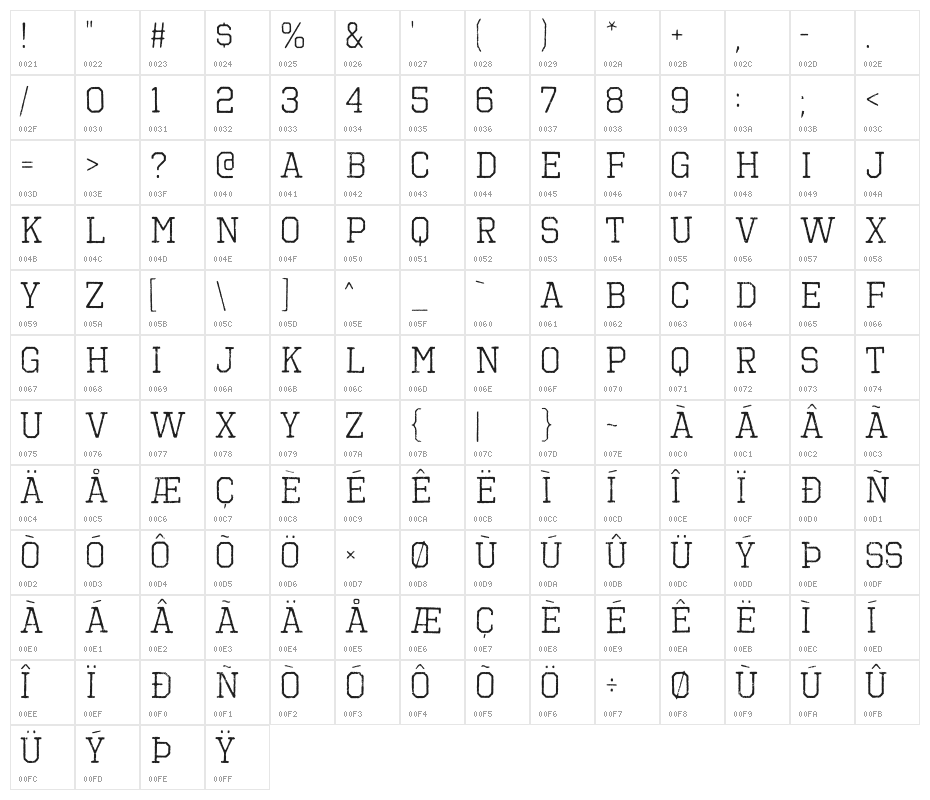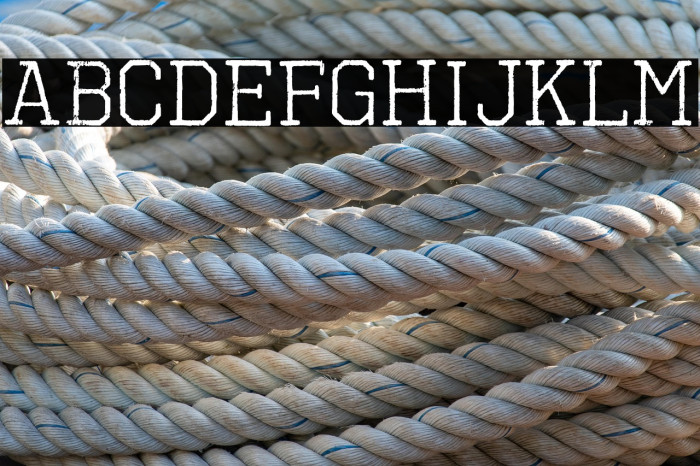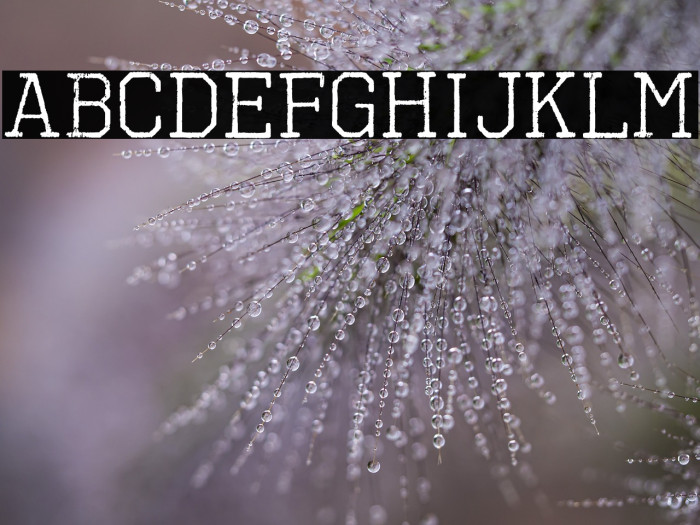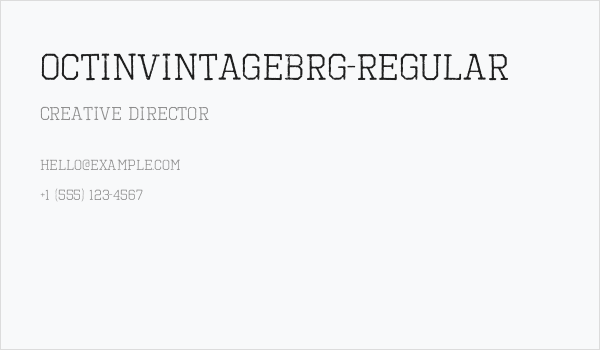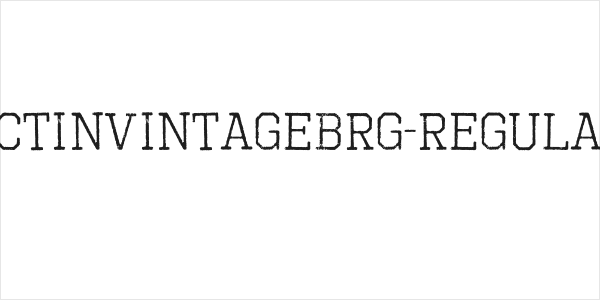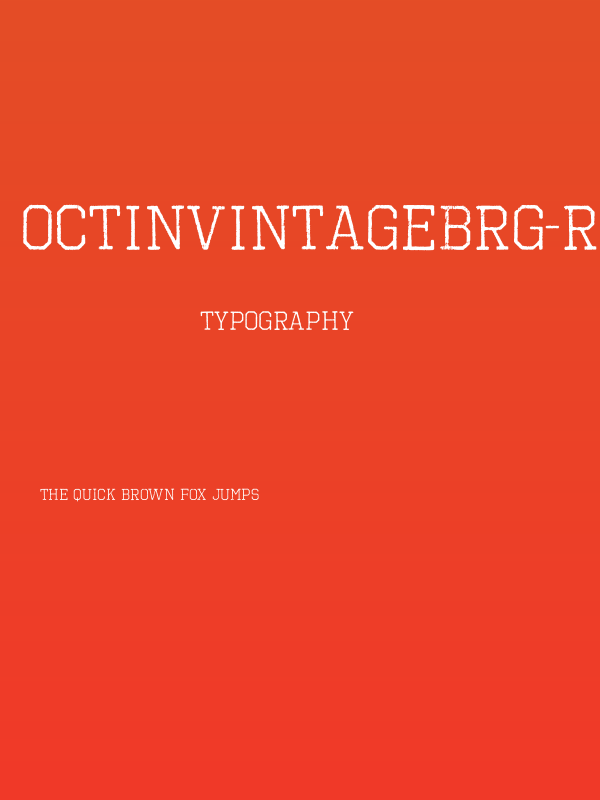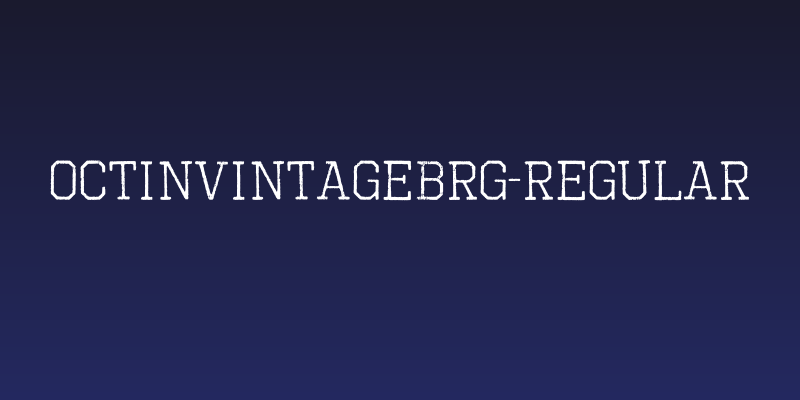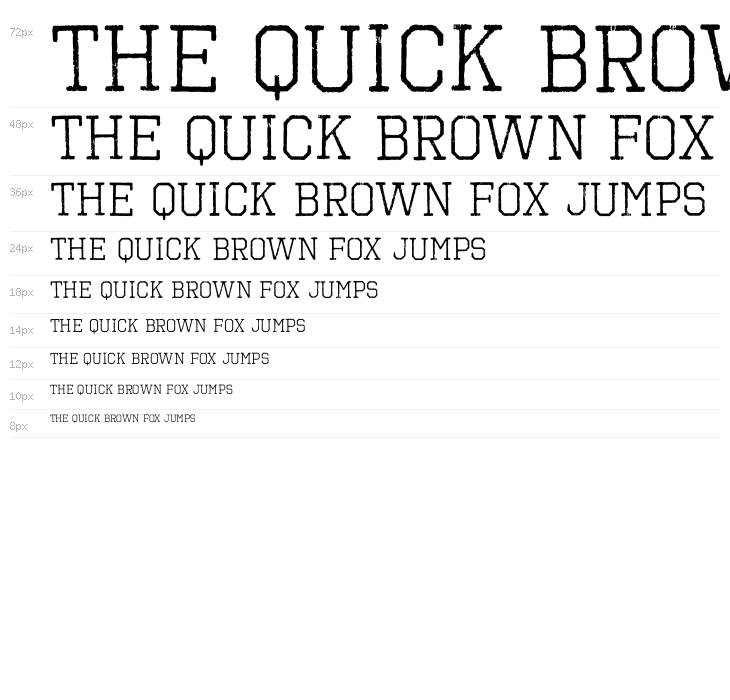
OctinVintageBRg-Regular Font
OctinVintageBRg-Regular Description
This font features a vintage, distressed look, reminiscent of old typewriter or printing press styles. The characters have a slightly rough texture, giving them an aged appearance. The uppercase letters are bold and prominent, while the lowercase letters maintain a consistent style with slightly less emphasis. Numbers and special characters follow the same design, ensuring uniformity across all glyphs. The font's unique style makes it ideal for projects that require a retro or industrial feel, adding character and authenticity to designs.
| Proposed Projects | Ideal for vintage-themed posters, retro branding, industrial design projects, and any creative work that benefits from a nostalgic touch. |